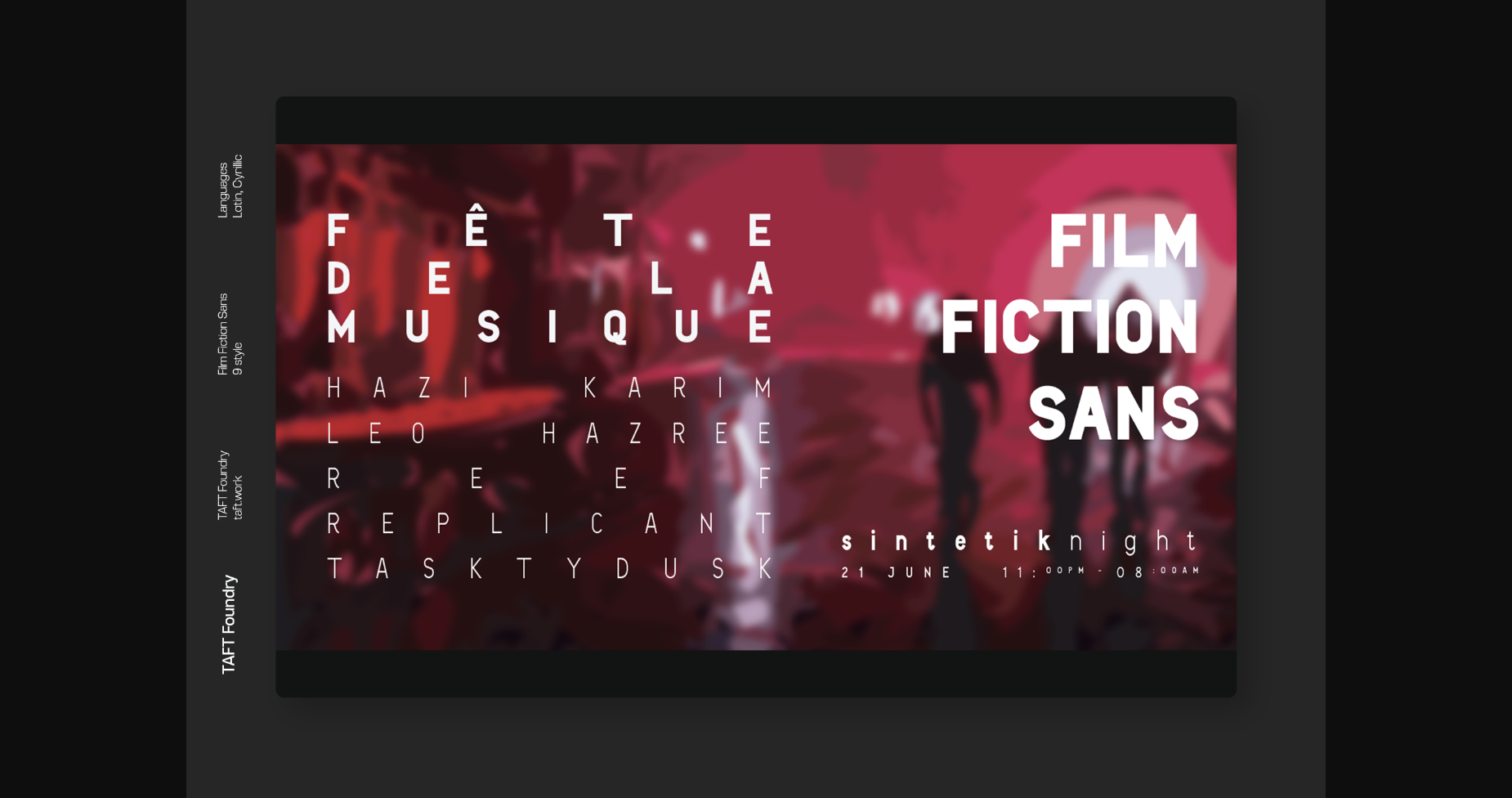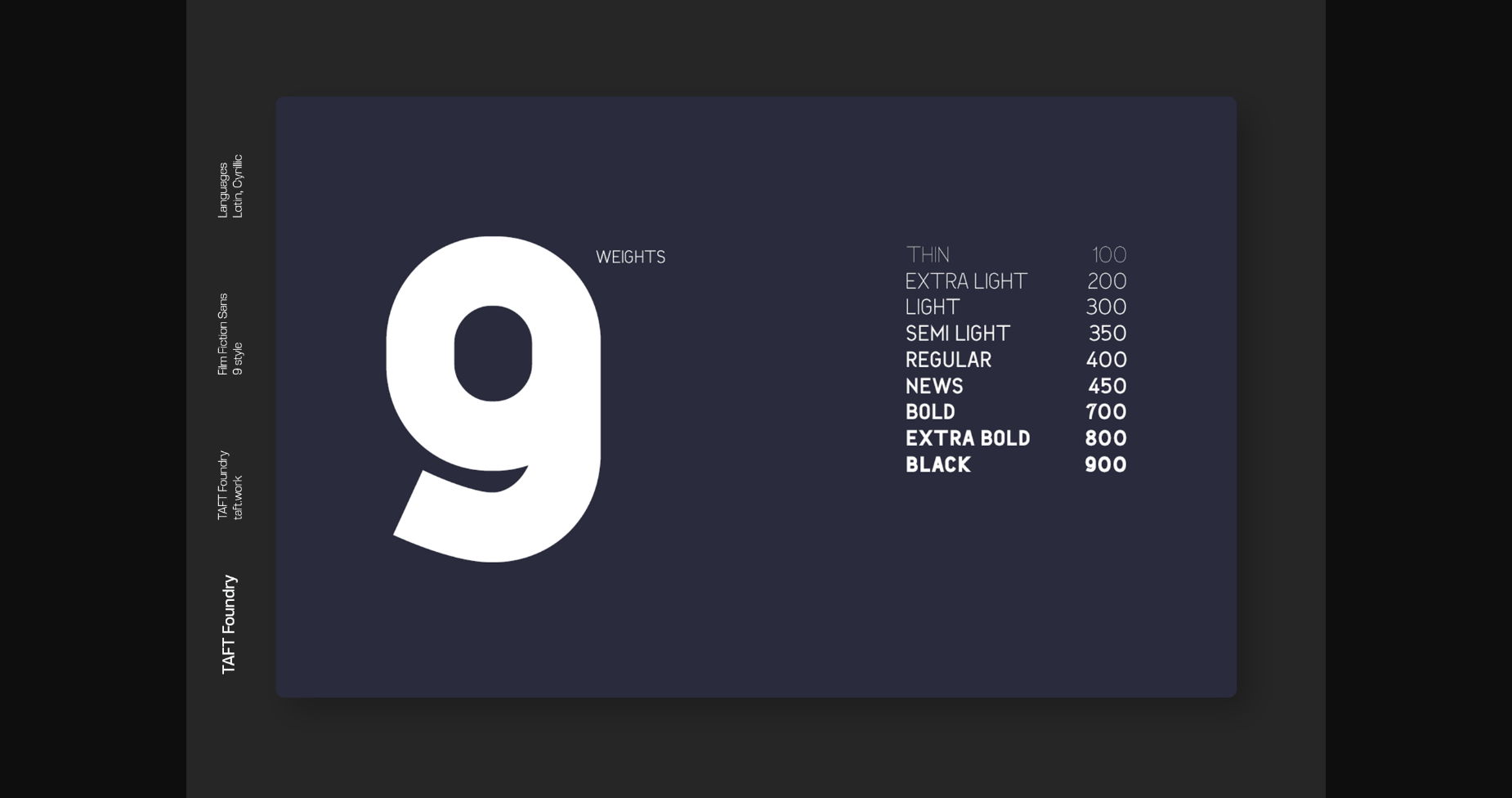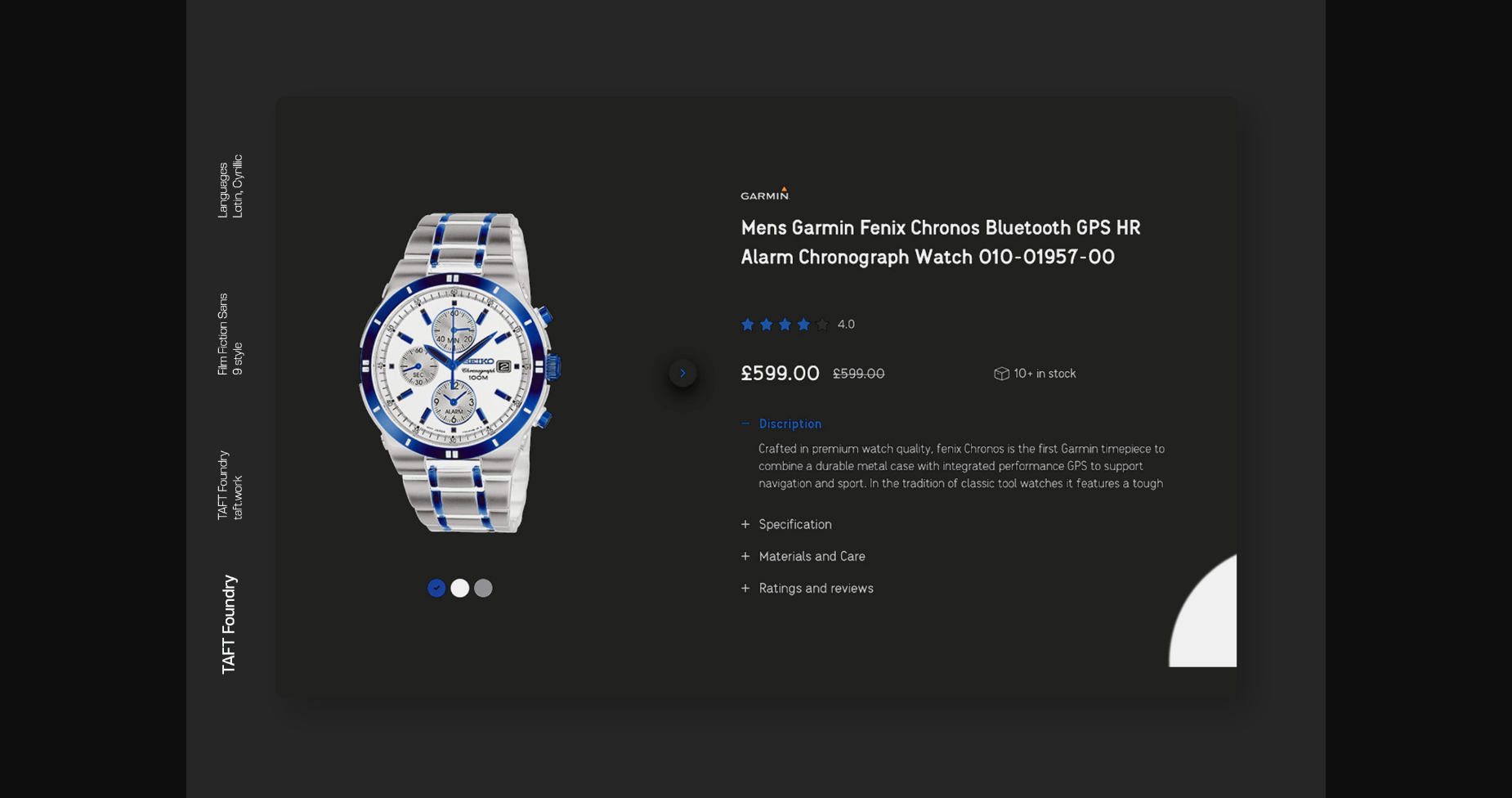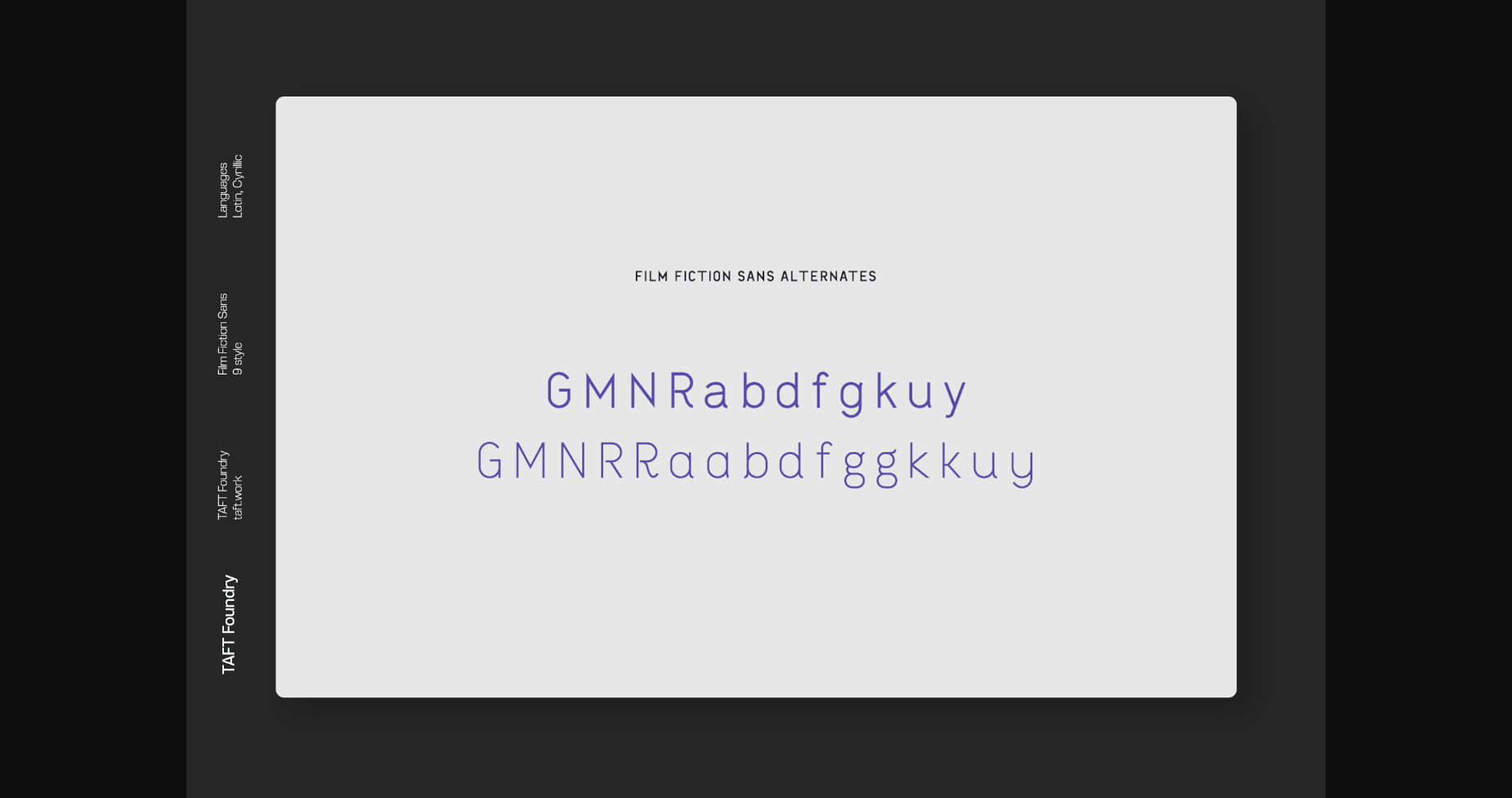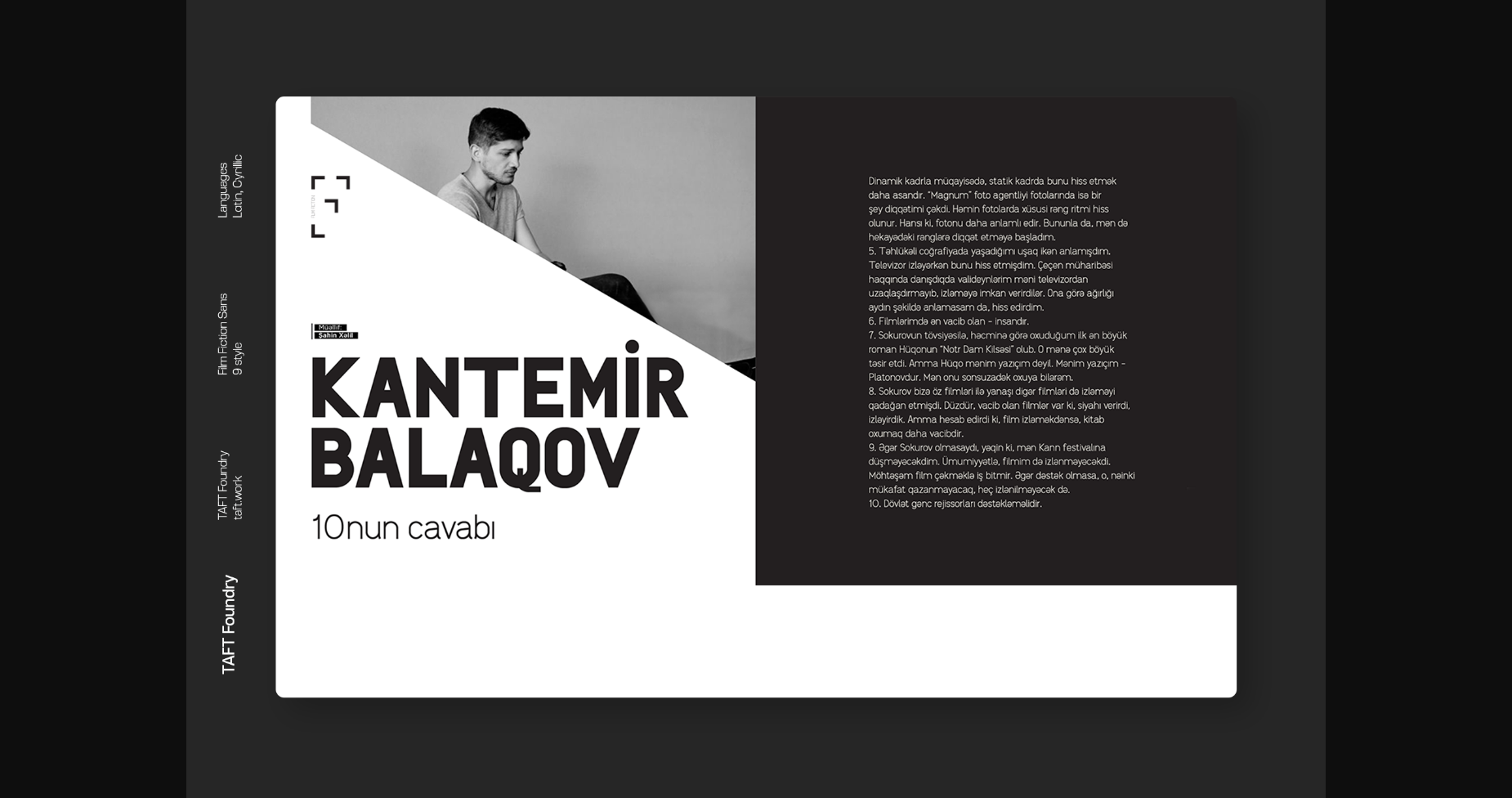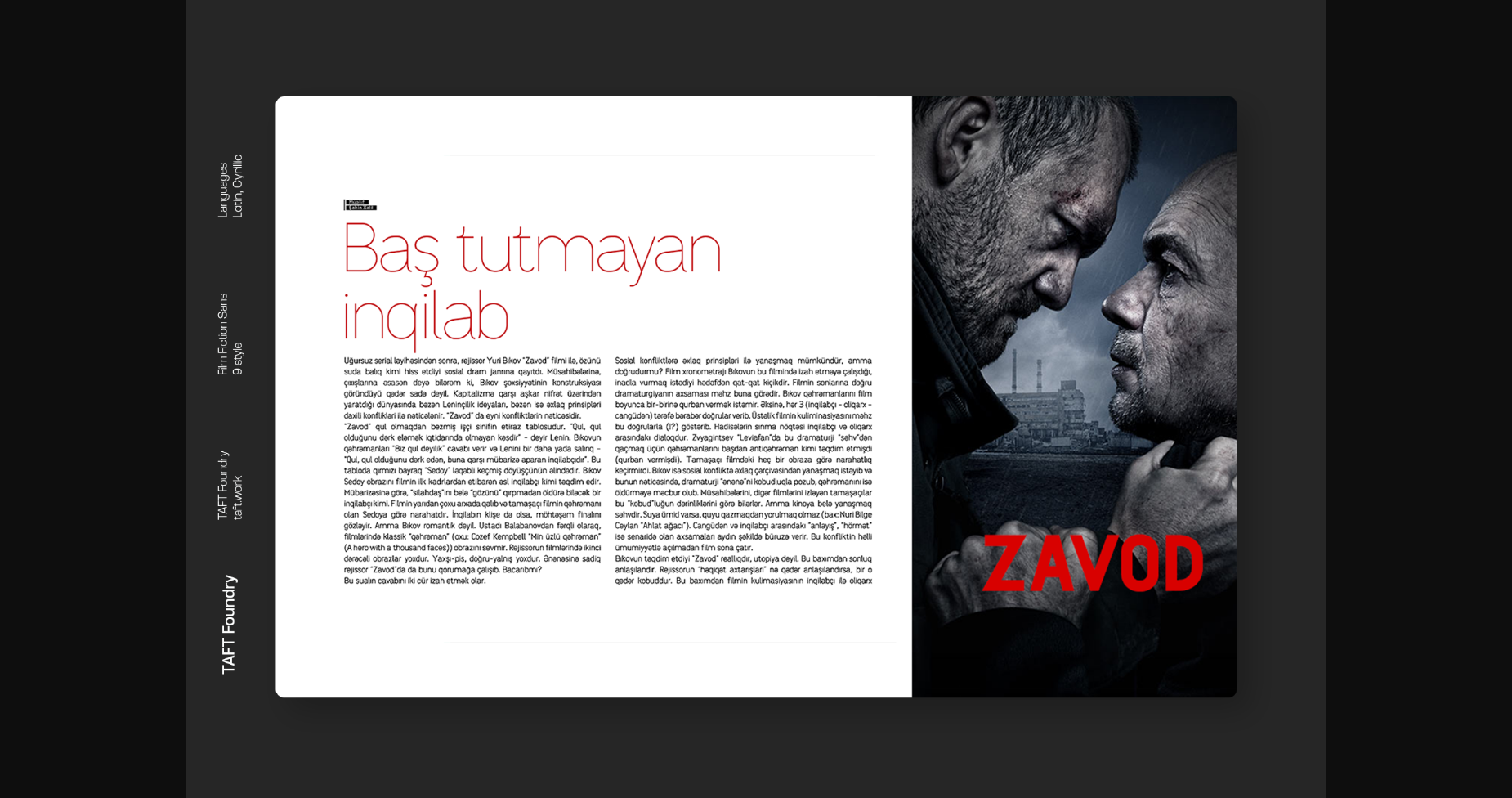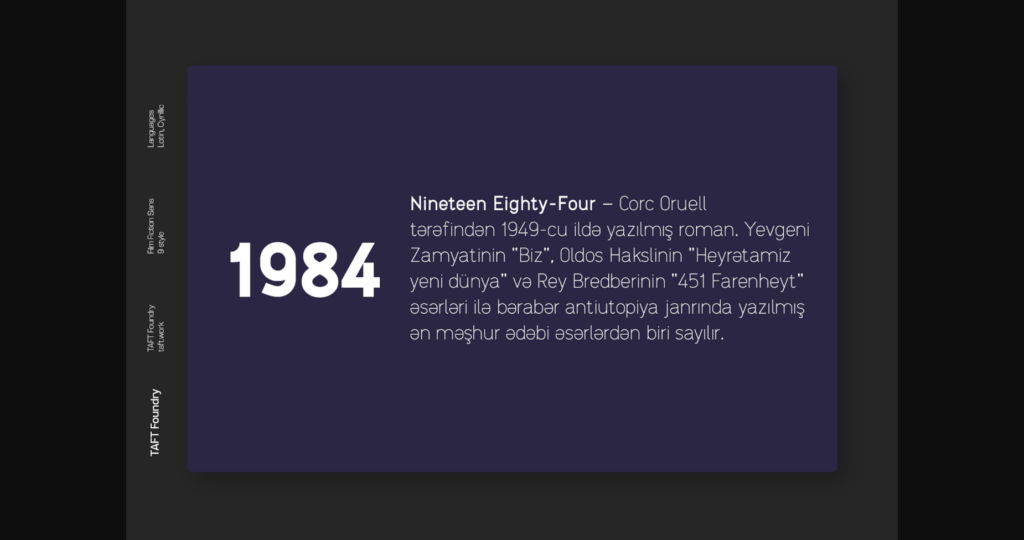
Film Fiction Font
Film Fiction is a simple and modern sans serif font. It can easily be matched to an incredibly large set of projects, so add it to your creative ideas and notice how it makes them stand out!